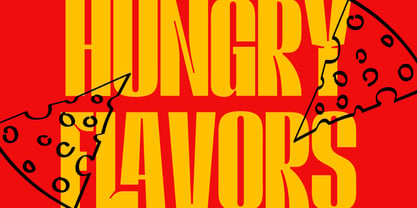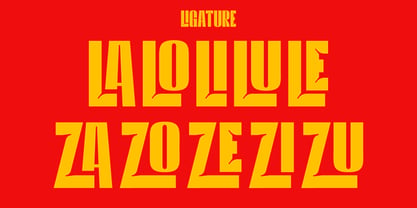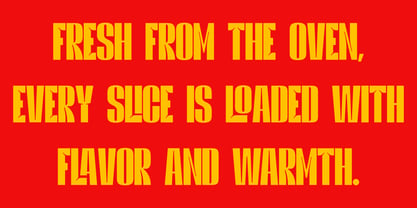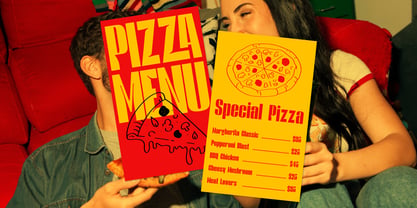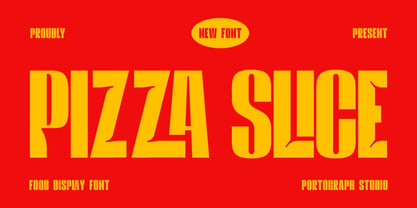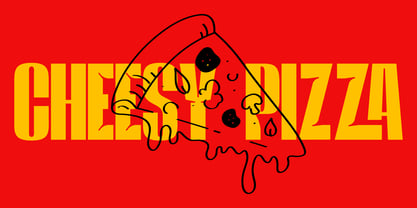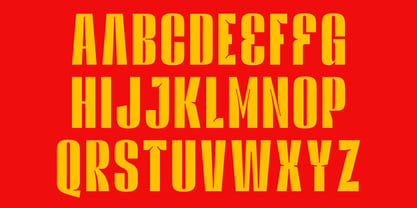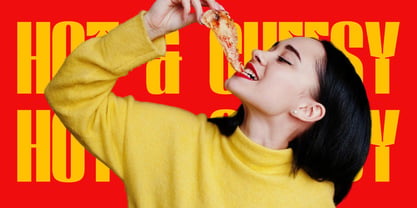
Pizza Slice
by Portograph Studio
The Pizza Slice Font Family was designed by Mirdhatillah and published by Portograph Studio. Pizza Slice contains 1 styles. More about this family
Pizza Slice is a bold and playful display font inspired by street food culture, retro posters, and eye-catching typography. With its tall condensed shapes, strong weight, and expressive character, this font is designed to grab attention instantly. The font includes uppercase and lowercase letters, numerals, punctuation, ligatures, and multilingual support, giving designers flexibility across a wide range of creative projects. Whether you’re working on food packaging, social media ads, or bold editorial layouts, Pizza Slice brings flavor, personality, and impact to your typography.
Designers: Mirdhatillah Mirdhatillah
Foundry: Portograph Studio